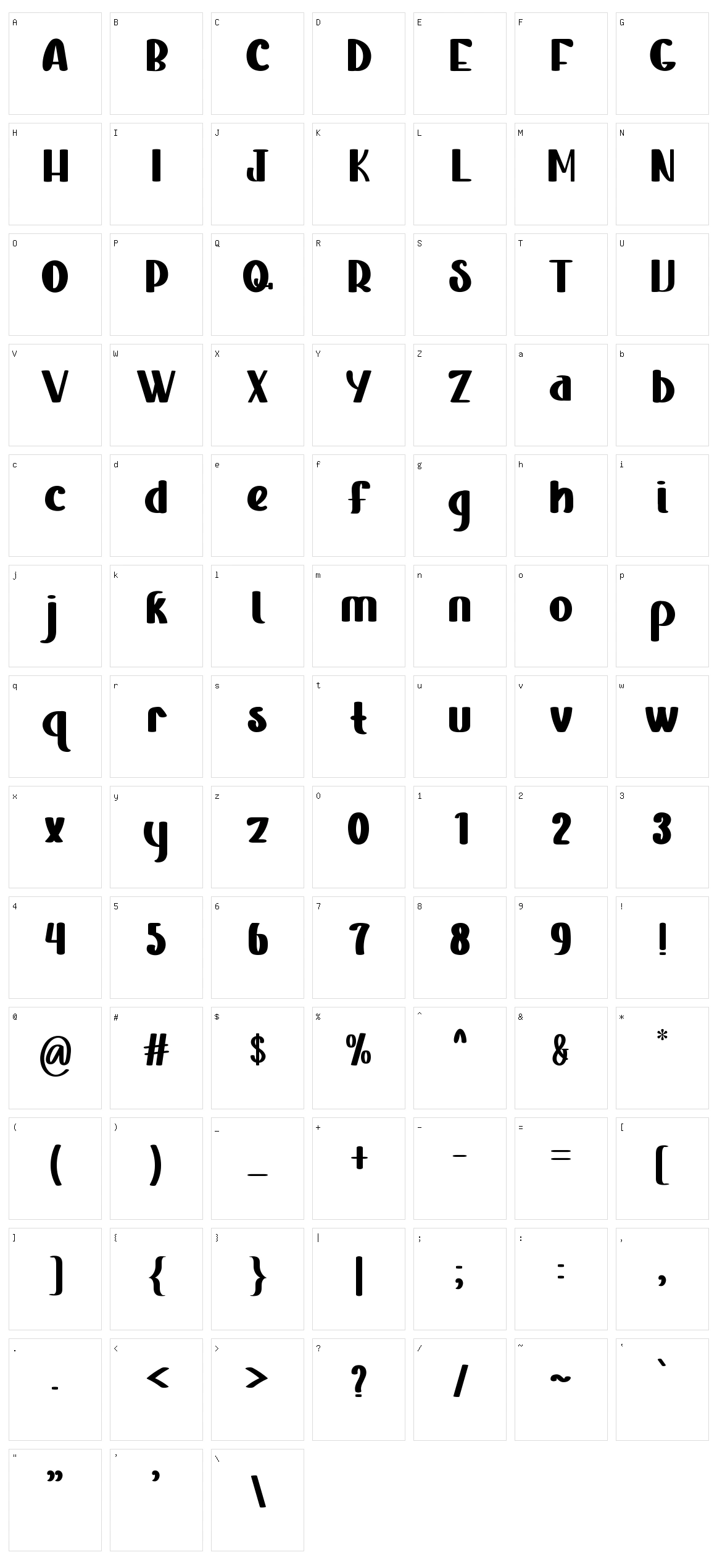
The free font Blue Sea is carefully designed by FreshtypeINK, showcasing a thoughtful balance of creativity and usability and falls under the Cartoon font style. When you download the ZIP file, it contains only 17.9 KB of font files, making it lightweight and quick to download. Please review the license details below to understand permitted usage and distribution rights. If license information is not available, we recommend using this font for personal projects only or contacting the author directly for commercial usage permissions.